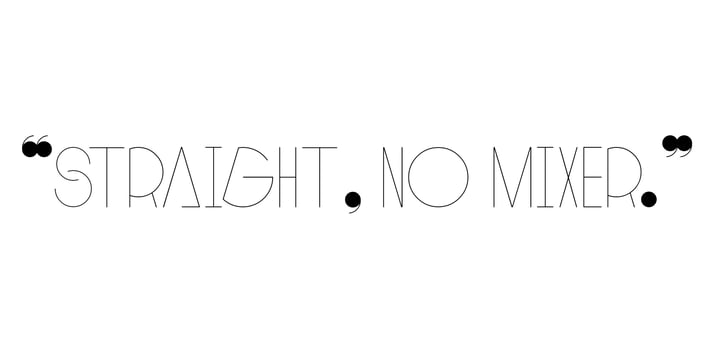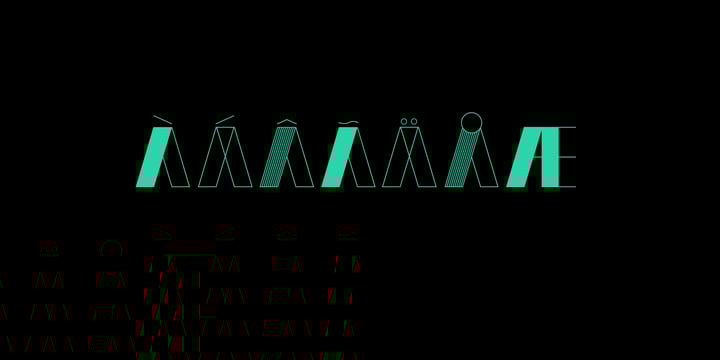
Decode
by Little Fonts
The Decode Font Family was designed by Max Little and published by Little Fonts. Decode contains 3 styles and family package options. More about this family
Decode is a retro styled font, referencing the art deco typography from the 1920's and 30's. The font is designed to be in keeping with the art deco style but with a contemporary and modern finish making it a stylish font for all kinds of work. The typeface is available in 3 complimentary styles. Use one on its own as a headline font or combine all three to create eye catching typographic displays. Each version comes with deco styled caps with an alternate uppercase to add extra variation to your work.